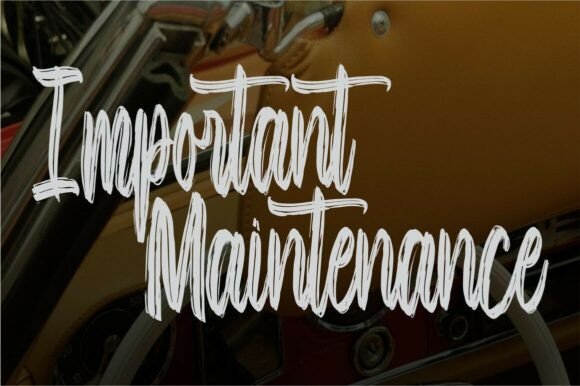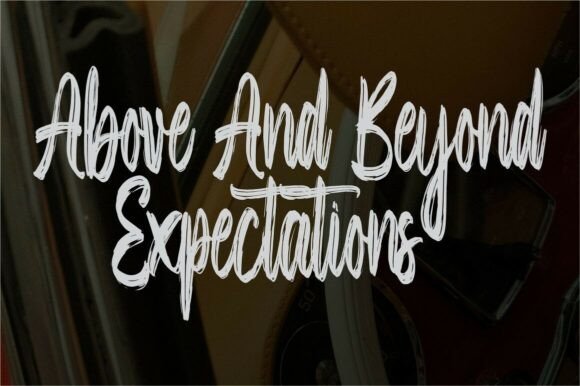
Introducing Grassland Font: A Textured Brush Font for Creative Designs
In the world of typography, fonts play a crucial role in conveying the tone and personality of a design. For designers and crafters looking for a unique and creative way to add a personal touch to their work, the Grassland Font is an excellent choice. This textured brush font offers a contemporary approach to design, with a handmade natural and irregular baseline that adds a touch of organic charm to any project.
What is Grassland Font?
Grassland Font is a carefully crafted, textured brush font that embodies the imperfections and uniqueness of hand-drawn typography. Its handmade natural and irregular baseline gives it a distinct, organic feel that sets it apart from more traditional fonts. This font is perfect for designers and crafters who want to add a personal touch to their work, creating a sense of warmth and connection with their audience.
Characteristics of Grassland Font
- Textured Brush Font: Grassland Font boasts a beautiful, textured quality that mimics the look of brush strokes, adding depth and visual interest to any design.
- Handmade Natural and Irregular Baseline: The font’s irregular baseline gives it a unique, hand-crafted feel that adds character and personality to your designs.
- Contemporary Approach: Despite its organic feel, Grassland Font has a distinctly contemporary approach to design, making it suitable for a wide range of modern projects.
Use Cases for Grassland Font
Grassland Font is incredibly versatile and can be used in a variety of design projects, including:
- Apparel Design: Add a personal touch to t-shirts, hoodies, and other clothing items with this unique font.
- Invitations and Stationery: Create beautiful, one-of-a-kind invitations, greeting cards, and stationery that stand out from the crowd.
- Book Titles and Quotes: Use Grassland Font to add a touch of elegance and sophistication to book titles, quotes, and other literary projects.
- Branding and Logos: Create memorable brand identities and logos that reflect your company’s personality and values.
- Greeting Cards and Packaging Design: Add a personal touch to greeting cards, gift wrapping, and packaging design with this beautiful font.
- Posters and More: From posters and flyers to social media graphics and website headers, Grassland Font can elevate any design project.
Why Choose Grassland Font?
With so many fonts available, why choose Grassland Font for your design projects? Here are just a few reasons:
- Unique and Eye-Catching: Grassland Font’s textured, hand-drawn quality makes it stand out from more traditional fonts, adding visual interest to any design.
- Versatile: Suitable for a wide range of design projects, from apparel and invitations to branding and packaging.
- Easy to Use: With its clean and intuitive design, Grassland Font is easy to use, even for designers and crafters with limited typography experience.
Tips for Using Grassland Font
To get the most out of Grassland Font, here are a few tips:
- Experiment with Colors: Take advantage of the font’s textured quality by experimenting with different colors and color combinations.
- Play with Size and Layout: Don’t be afraid to experiment with different font sizes and layouts to create visual interest and hierarchy in your designs.
- Pair with Other Fonts: Combine Grassland Font with other fonts to create a unique and visually appealing typography style.
| Author | gianstudio12 |
Grassland Font is a beautiful, textured brush font that offers a unique and creative way to add a personal touch to your design projects. With its handmade natural and irregular baseline, contemporary approach, and versatility, it’s an excellent choice for designers and crafters looking to stand out from the crowd. Whether you’re working on apparel, invitations, branding, or packaging design, Grassland Font is sure to elevate your work and leave a lasting impression on your audience.